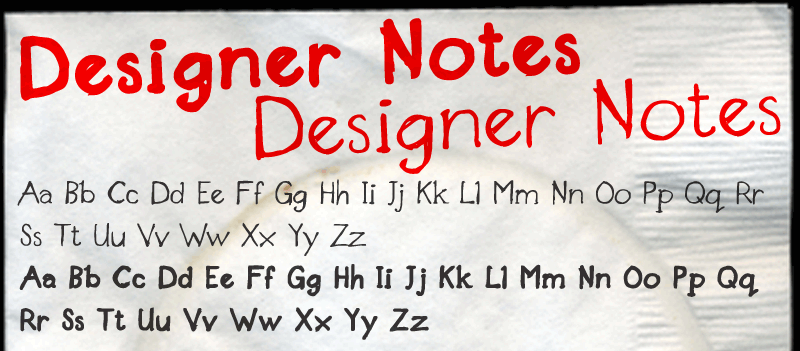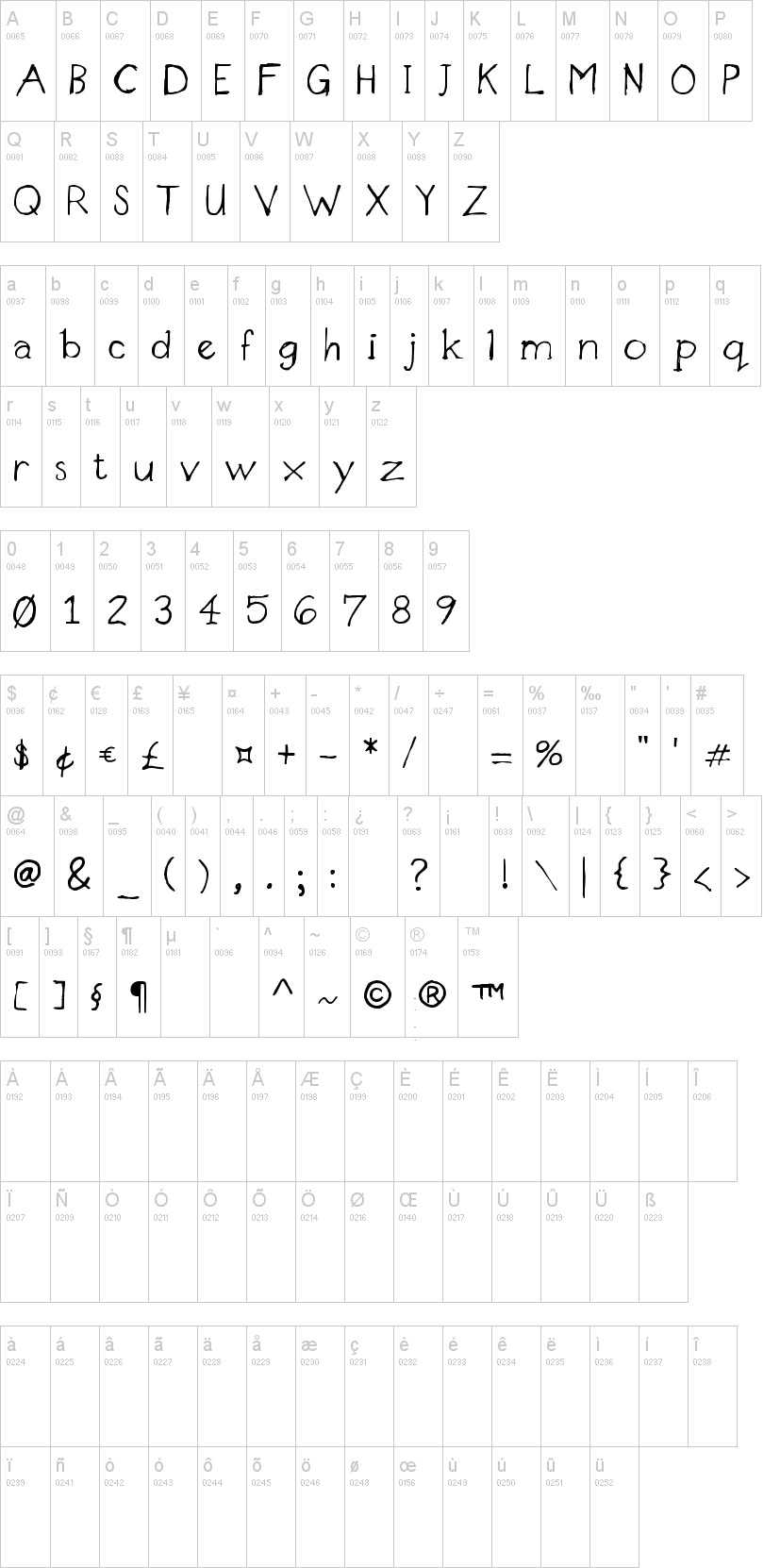
Designer-Notes-Bold.ttfNote of the authorThis is a personal project that's been on my to-do list for a long time. I wanted a font that matched the appearance of notes in my sketchbook. I like to do sketches and take notes using a Pilot Precise V5RT pen. There's something special about how it puts ink on paper.